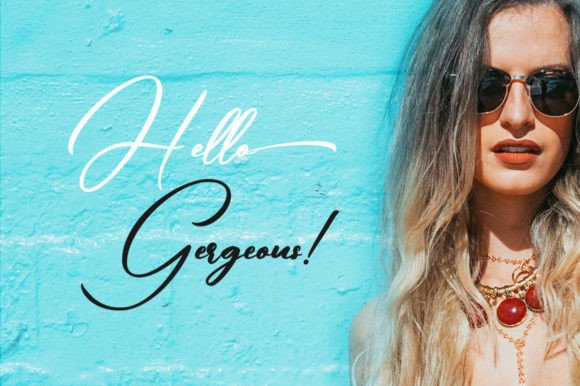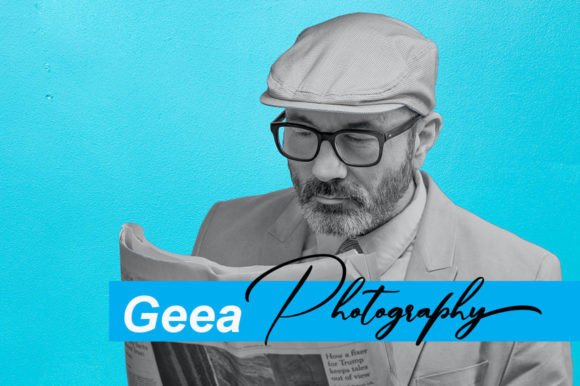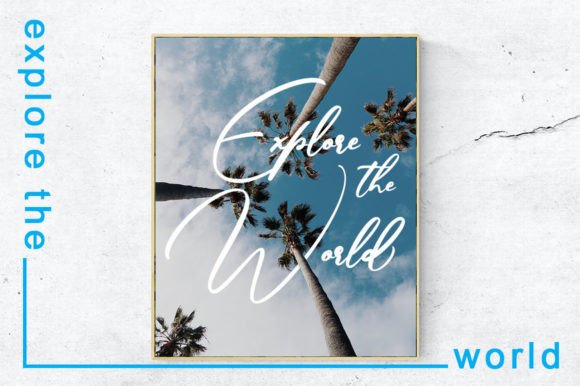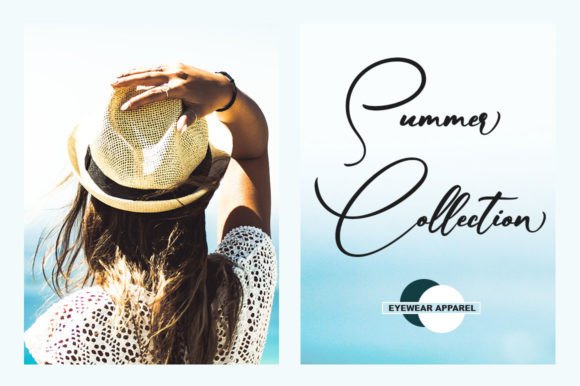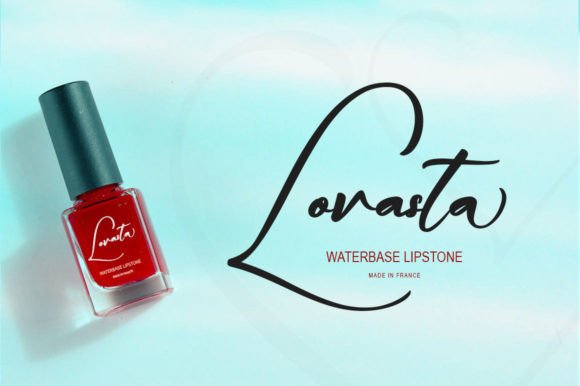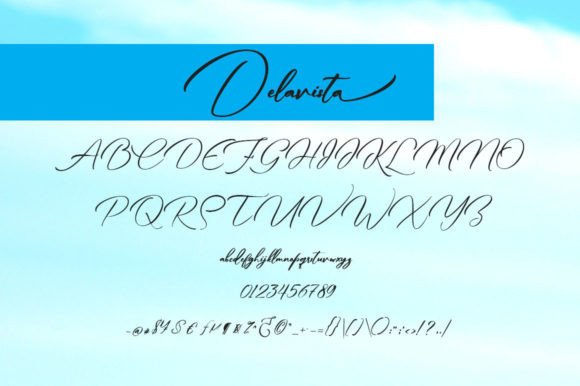
Discover the Elegance of Delavista Font: A Timeless Handwritten Script
Are you on the lookout for a font that adds a touch of elegance and sophistication to your designs? Look no further than Delavista, a beautiful flowing handwritten font that is sure to capture your heart. With its unique and timeless style, Delavista is perfect for designers and crafters who want to create spectacular designs that stand out from the crowd.
What is Delavista Font?
Delavista is a carefully crafted handwritten font that boasts a flowing script style, reminiscent of traditional calligraphy. Its elegant and refined appearance makes it an ideal choice for a wide range of design projects, from wedding invitations and branding materials to social media graphics and digital art.
Key Features of Delavista Font
- Unique and Timeless Style: Delavista’s distinctive style sets it apart from other fonts, giving your designs a one-of-a-kind look that is sure to leave a lasting impression.
- Elegant and Refined: The font’s flowing script style and carefully crafted lettering make it perfect for designs that require a touch of sophistication and elegance.
- Highly Versatile: Delavista can be used for a wide range of design projects, from print materials to digital content, making it a valuable addition to any designer’s toolkit.
- Easy to Read: Despite its elegant and cursive nature, Delavista remains highly legible, ensuring that your message is conveyed clearly and effectively.
Why Choose Delavista Font?
With so many fonts available, why should you choose Delavista for your design projects? Here are just a few reasons why Delavista stands out from the crowd:
- Stand Out from the Crowd: Delavista’s unique style ensures that your designs will stand out from the crowd, grabbing the attention of your audience and setting you apart from your competitors.
- Perfect for Creative Projects: Whether you’re working on a personal project or a client’s brief, Delavista’s elegant and refined style makes it perfect for creative and artistic endeavors.
- Time-Saving: With Delavista, you can create stunning designs in no time, thanks to its highly legible and versatile nature.
How to Use Delavista Font
Using Delavista in your designs is easy and straightforward. Here are a few tips to get you started:
- Pair it with Other Fonts: Delavista pairs beautifully with other fonts, making it easy to create stunning contrast and visual interest in your designs.
- Experiment with Colors: The font’s elegant style looks great in a range of colors, from bold and bright to soft and pastel.
- Use it for Headings and Titles: Delavista’s unique style makes it perfect for headings and titles, adding a touch of elegance and sophistication to your designs.
In conclusion, Delavista font is a beautiful and elegant handwritten script that is perfect for designers and crafters who want to create spectacular designs. With its unique and timeless style, Delavista is sure to capture your heart and become a valuable addition to your design toolkit. So why wait? Fall in love with Delavista and start creating stunning designs today!